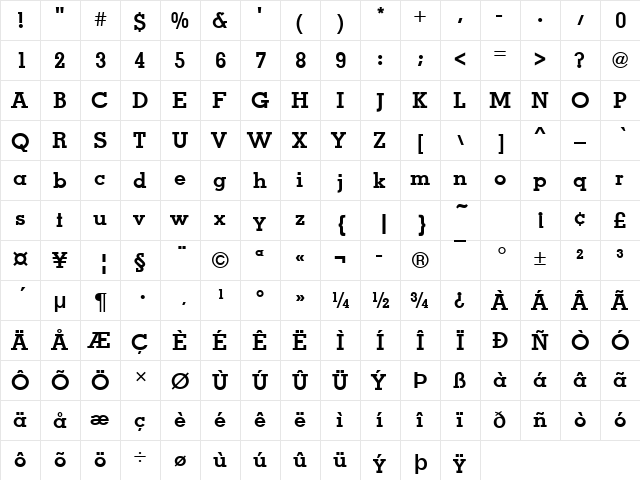
URWMoritoTMed Regular
Design Context for URWMoritoTMed Typeface
URWMoritoTMed is a composed and adaptable typeface that performs quietly and consistently across a wide range of design contexts.